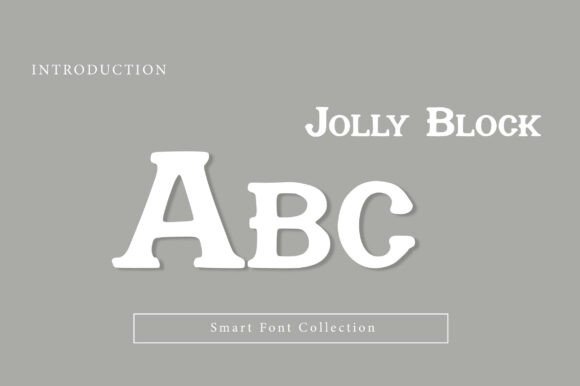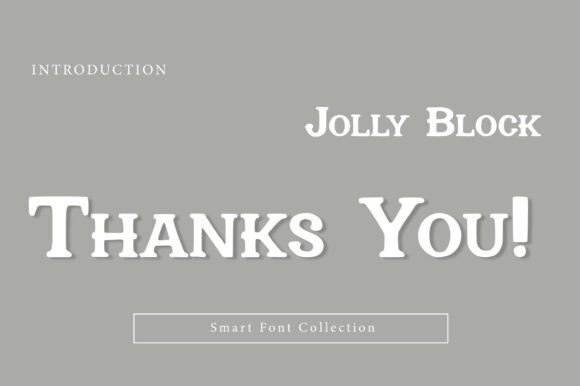
Introduction to Jolly Block Font
Have you ever stared at a blank design canvas, eager to bring a project to life, but struggling to find the perfect font? For designers, typography is the backbone of any creative project, and the right font can make all the difference. That’s where the Jolly Block Font comes in – a bold, playful, and confident display font that’s sure to capture your audience’s attention.
With its strong block-style letterforms and friendly personality, Jolly Block Font is the perfect design resource for creatives looking to add some high-quality flair to their work. Its thick strokes and slightly rounded edges deliver a fun and eye-catching look that’s perfect for logos, posters, kids branding, and more. Plus, with a transparent background and free download option, you can experiment with this versatile font in no time.
Whether you’re working on a print or digital design, Jolly Block Font is a valuable addition to any designer’s toolkit. Its bold, cheerful lettering makes it a standout choice for titles and display typography, and its energy is contagious – guaranteed to leave a lasting impression on your audience.
Key Features of Jolly Block Font
- High-quality design resource perfect for creative projects, offering a unique and playful aesthetic.
- Features a transparent background, making it easy to layer and combine with other design elements.
- Unique block-style letters and symbols make it ideal for use in digital art, graphic design, and typography projects.
Honest Review: Jolly Block Font
I recently had the chance to work with the Jolly Block Font, and I must say it’s a great addition to any designer’s toolkit. This free download font is perfect for any creative project that requires a bold, playful touch.
What works well with the Jolly Block Font is its versatility. ✨ It’s ideal for use in logos, branding, and even web design. The high quality of the font makes it perfect for printing, and the transparent background allows for seamless integration with any design.
- Perfect for logos, branding, and creative projects
While the Jolly Block Font is a great resource, there are a few limitations to keep in mind. ⚠️ The font may not be suitable for use in formal or professional settings, and the playful nature of the font may not be suitable for all types of projects.
Overall, I’m impressed with the Jolly Block Font and would recommend it to designers looking for a fun and creative font to add to their toolkit. With its high quality and versatility, it’s a great resource to have in your design arsenal.
Tips for Getting the Most Out of Jolly Block Font
For the best results, use the Jolly Block Font in conjunction with other high-quality design elements. Experiment with different font sizes, colors, and styles to create unique and eye-catching designs. You can also use the font in combination with images and graphics to create visually appealing creative projects.
The Jolly Block Font is suitable for a wide range of creative projects, including graphic design, digital art, and web design. It’s also great for creating social media graphics, presentations, and documents that require a fun and playful touch.